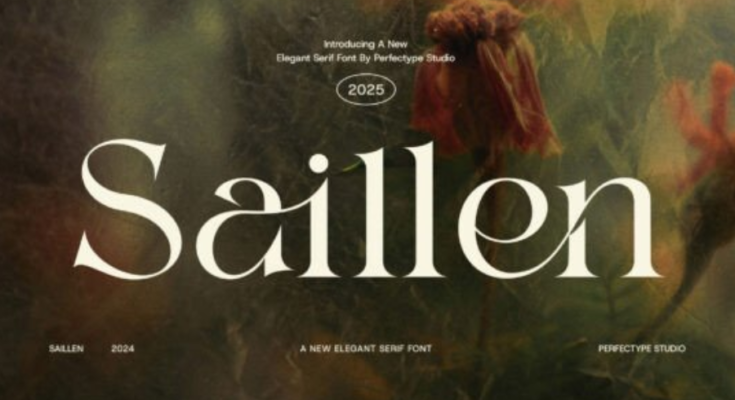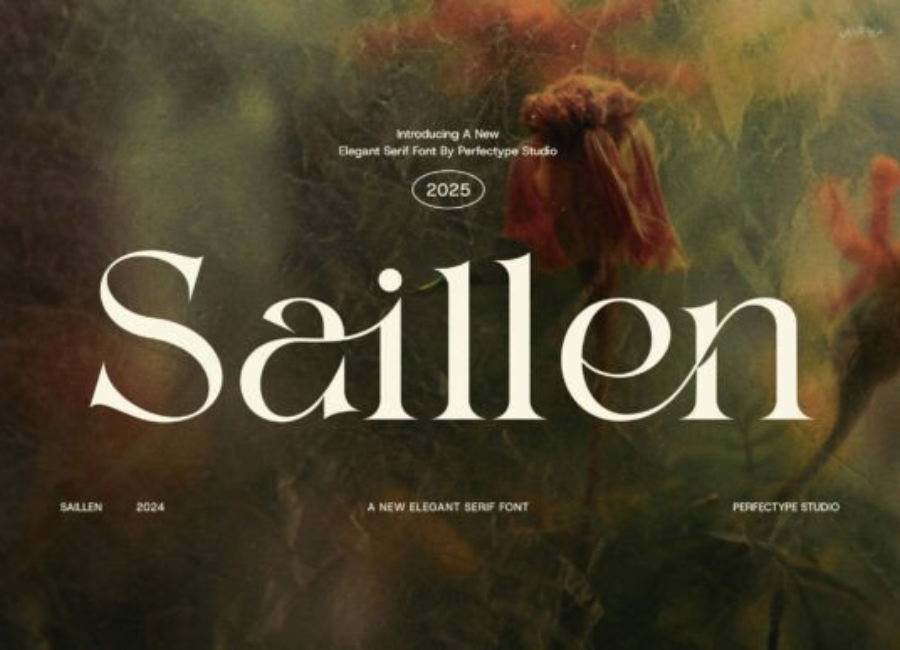
Introducing Saillen, a beautifully crafted elegant serif font that captures the essence of modern sophistication and timeless style. Designed to elevate your creative projects with grace and distinction, Saillen is the perfect choice for designers seeking both versatility and refined character.
Saillen stands out with its clean lines, soft curves, and subtle contrast — giving your typography a polished, editorial look. The font’s design is enriched by a collection of unique ligatures and stylish alternate characters, allowing for customized, expressive layouts. These refined details make Saillen ideal for everything from luxury branding to modern packaging and minimalist design.
Whether you’re creating a logo, designing a magazine layout, or crafting the visual identity for a boutique, fashion label, or creative agency, Saillen brings a sense of elevated design to every application. Its harmonious letterforms are equally suited for websites, social media graphics, product labels, advertisements, and high-end stationery.
This typeface effortlessly bridges classic serif elegance with a fresh, contemporary edge — making it the go-to font for wedding invitations, beauty products, editorial spreads, and premium lifestyle brands. Saillen is both professional and artistic, offering a balance that enhances readability while exuding style.
Thanks to its flexible features, you can tailor Saillen to match your creative vision. Use its ligatures to create smooth, flowing wordmarks or its alternates to add subtle flair to headings and taglines. Whether you’re going for sleek minimalism or ornate detail, Saillen adapts beautifully to your design needs.
Elegant, modern, and distinctly stylish — Saillen Serif Font is more than a typeface; it’s a design tool that helps you communicate luxury, creativity, and sophistication in every project.
Let Saillen transform your typography and bring a refined, modern voice to your visual storytelling.